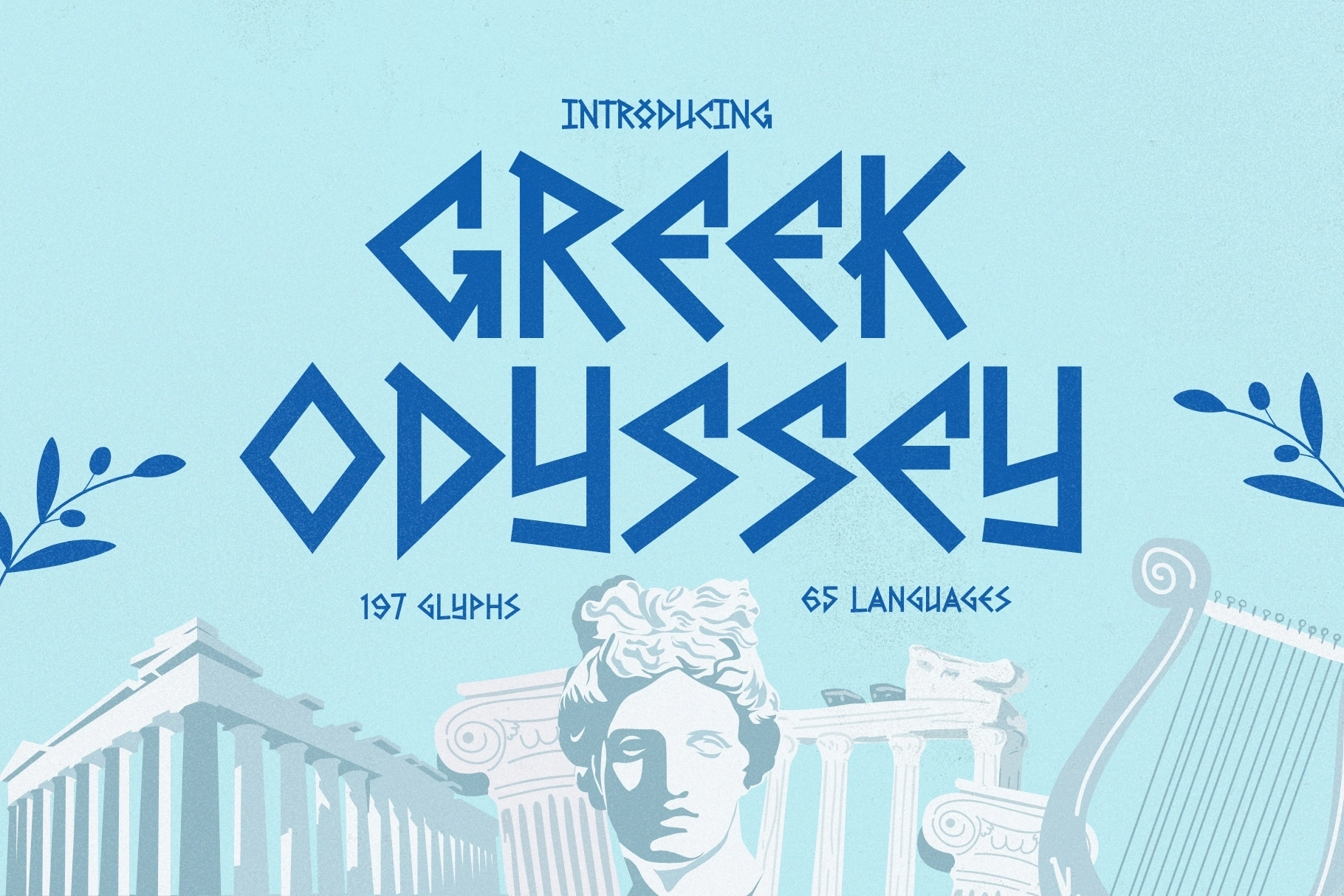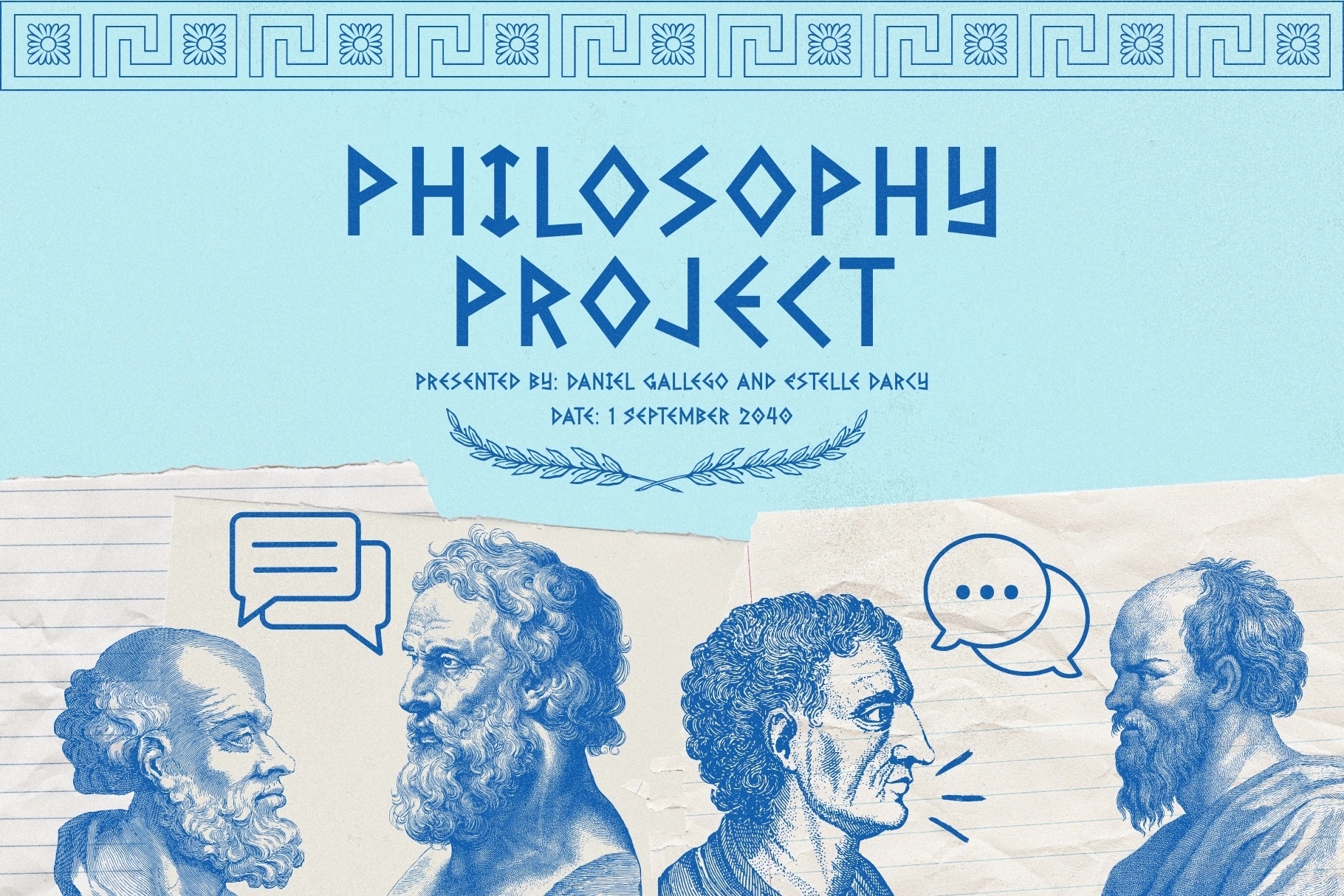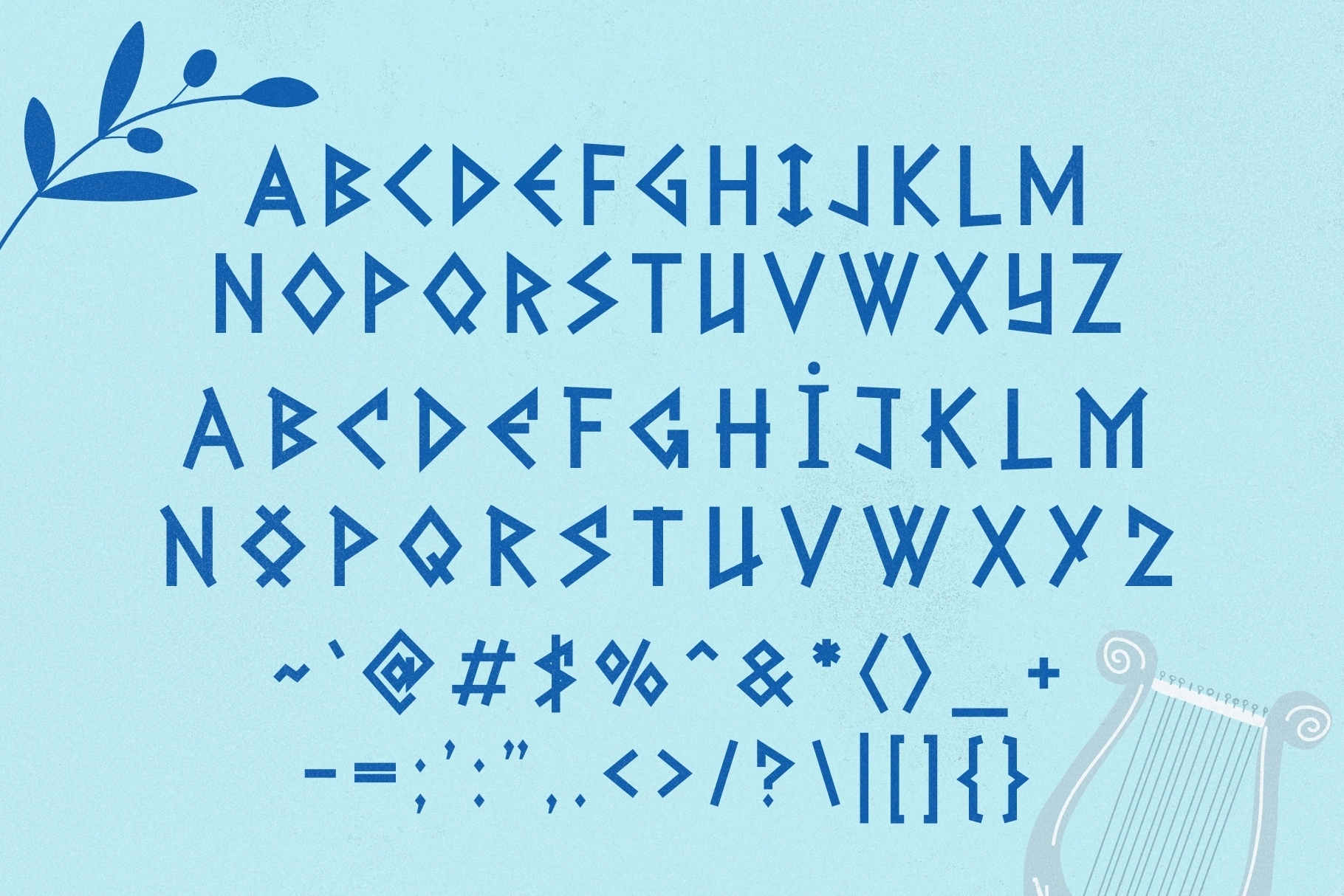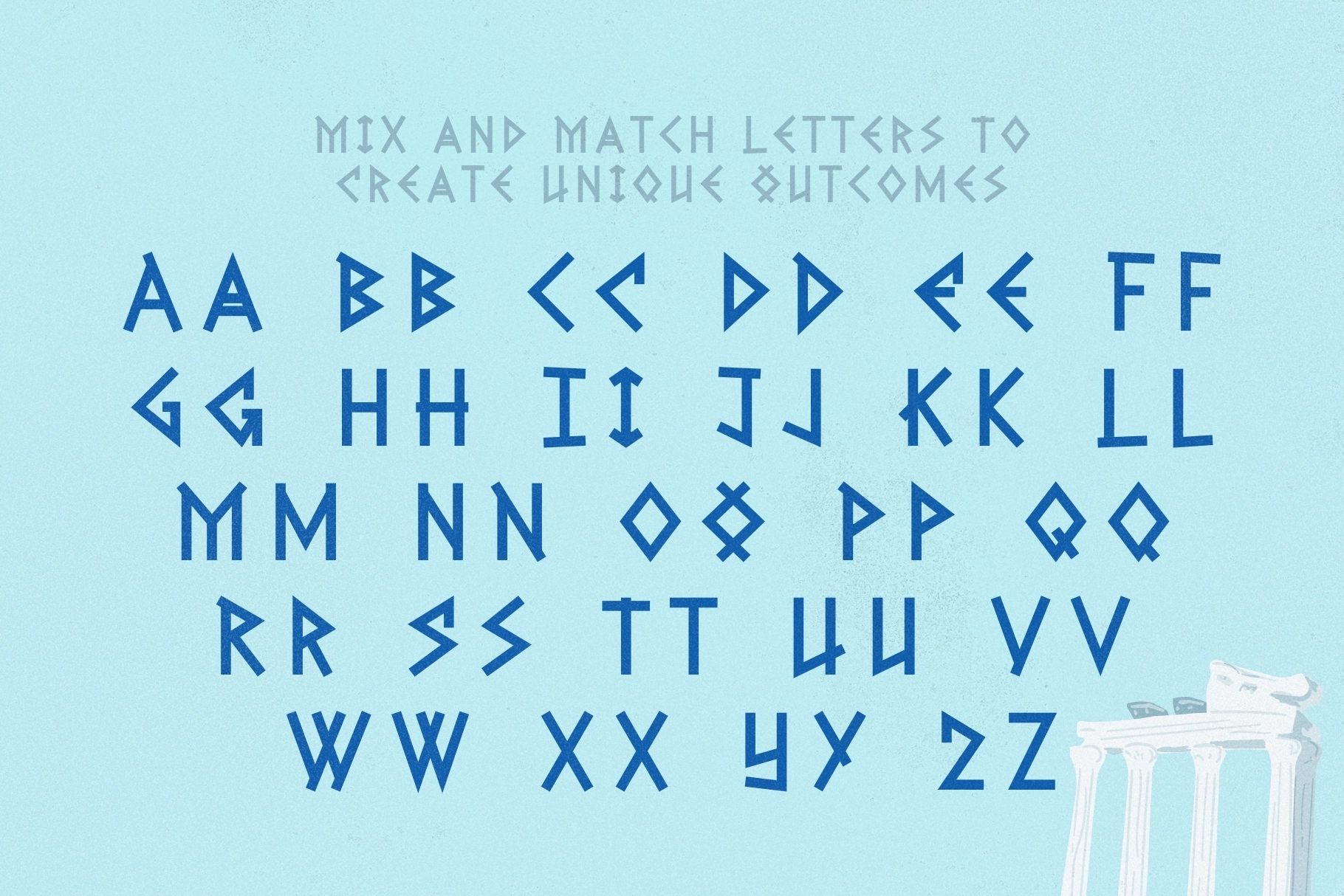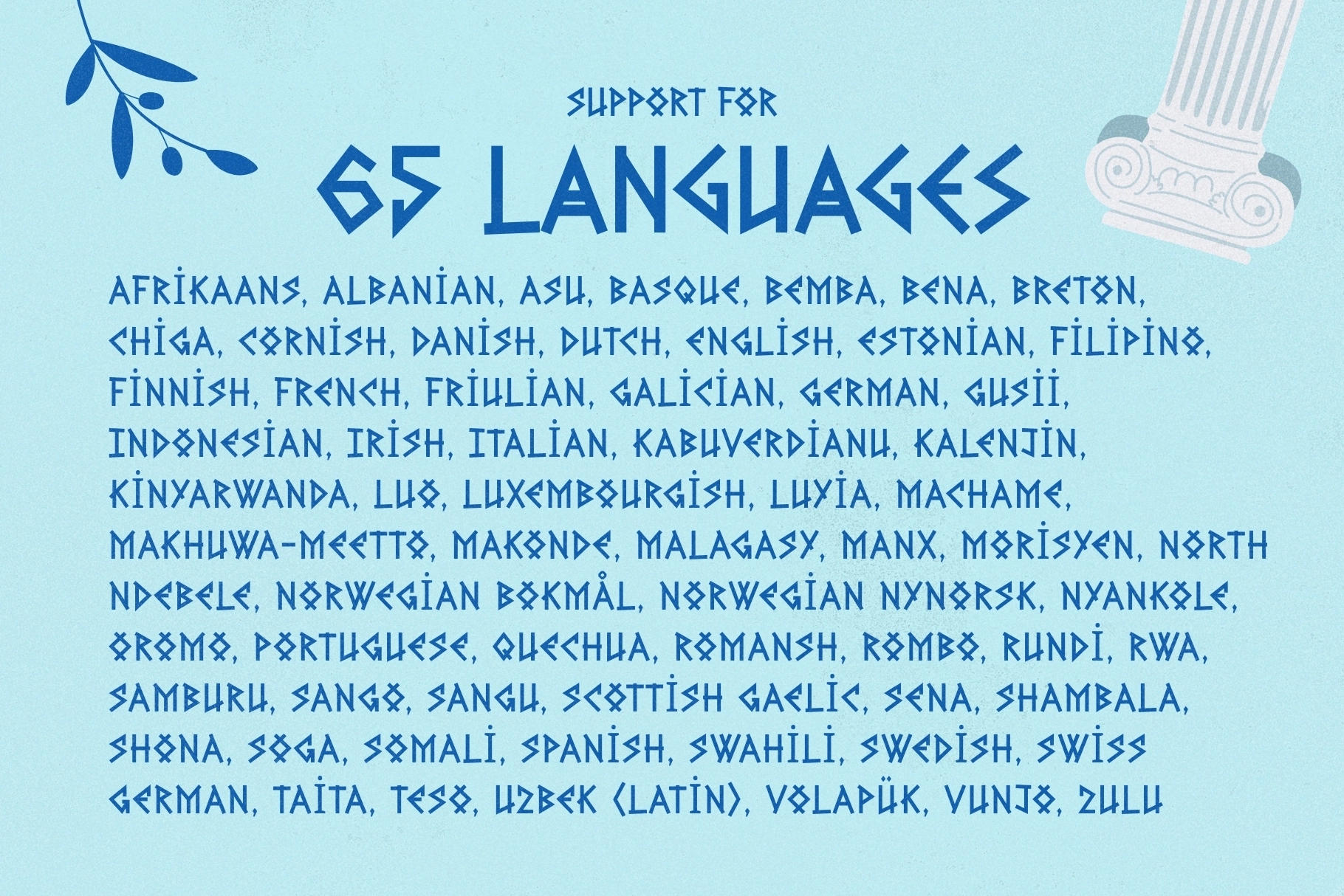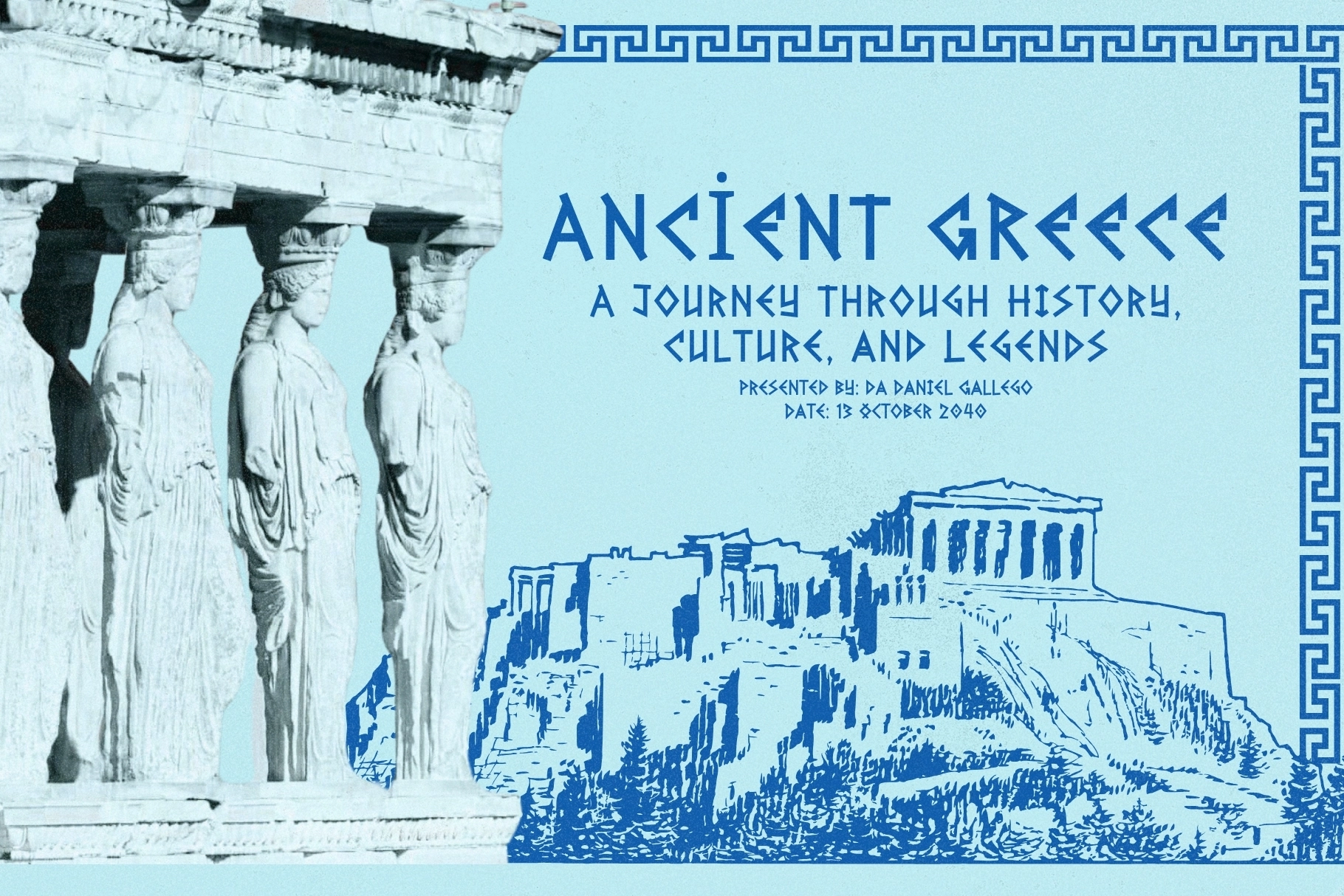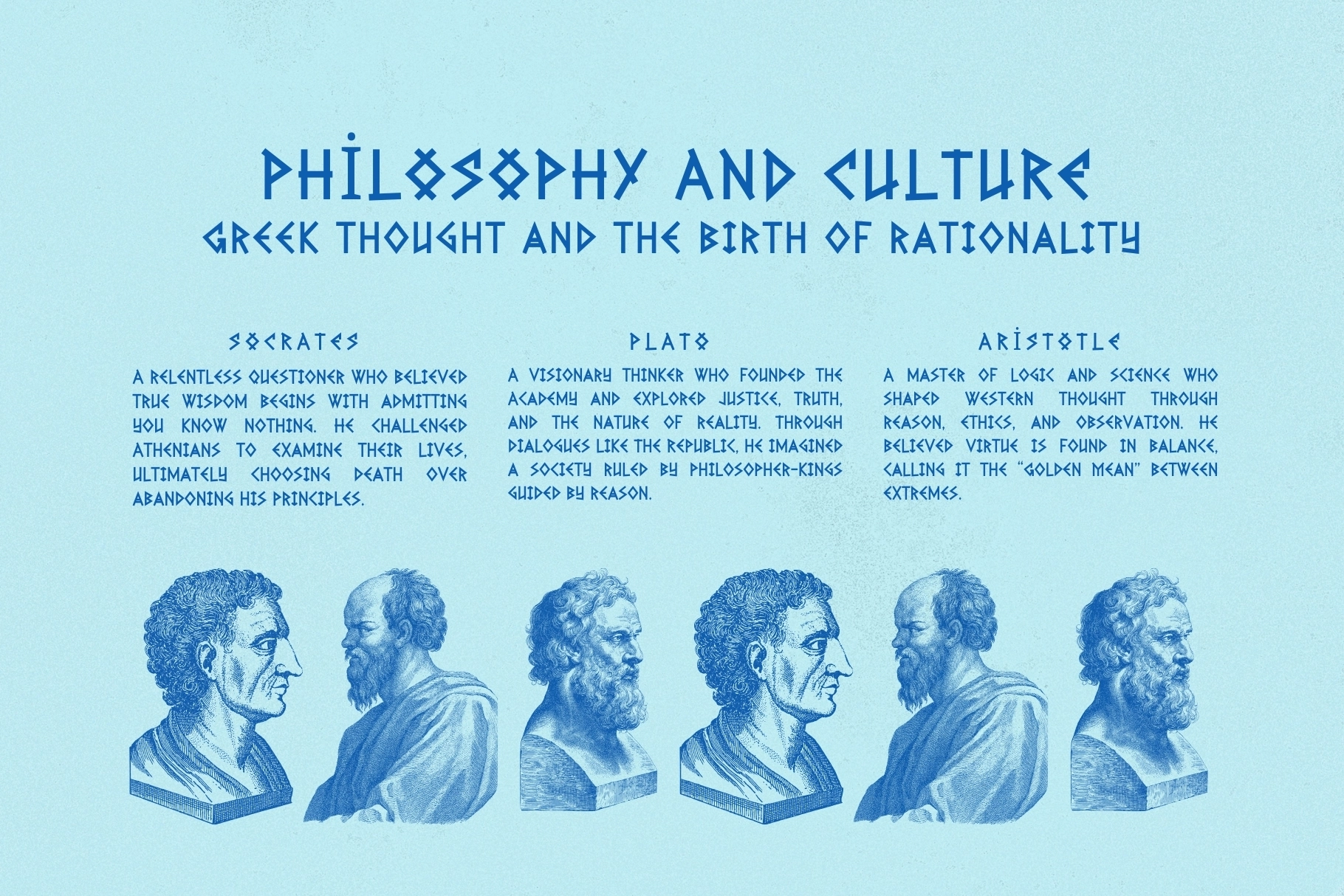
Greek Odyssey - Greek Style Display Font
Greek Odyssey – Greek Style Display Font is a striking typeface inspired by the monumental beauty and cultural legacy of ancient Greece. Built with geometric letterforms, sharp angles, and classical proportions, the font evokes the feeling of inscriptions carved in stone, ancient temples, and legendary myths. Its distinctive structure captures the spirit of Greek heritage while remaining clean and bold enough for modern design projects.
Perfect for mythology-inspired branding, cinematic titles, historical themes, posters, book covers, museum graphics, and creative editorial work, Greek Odyssey delivers a strong visual identity with timeless character. Each letterform carries a sense of authority and storytelling, making it ideal for designs that require a dramatic, historical, or cultural atmosphere.
• Uppercase & Lowercase Characters
• Numerals
• Punctuation & Symbols
• Multilingual Support (65+ Languages)
• 197 Glyphs
• Ancient Greek Inspired Letterforms